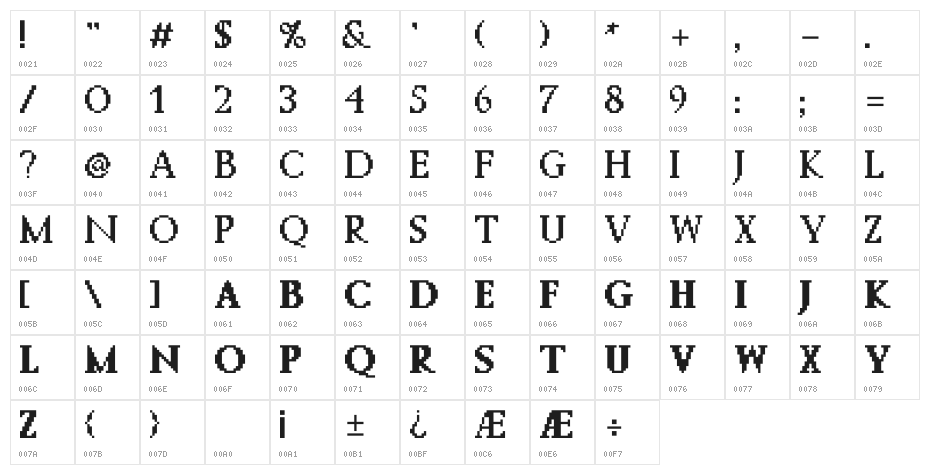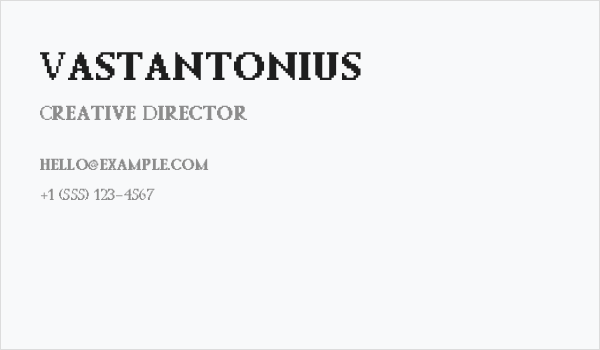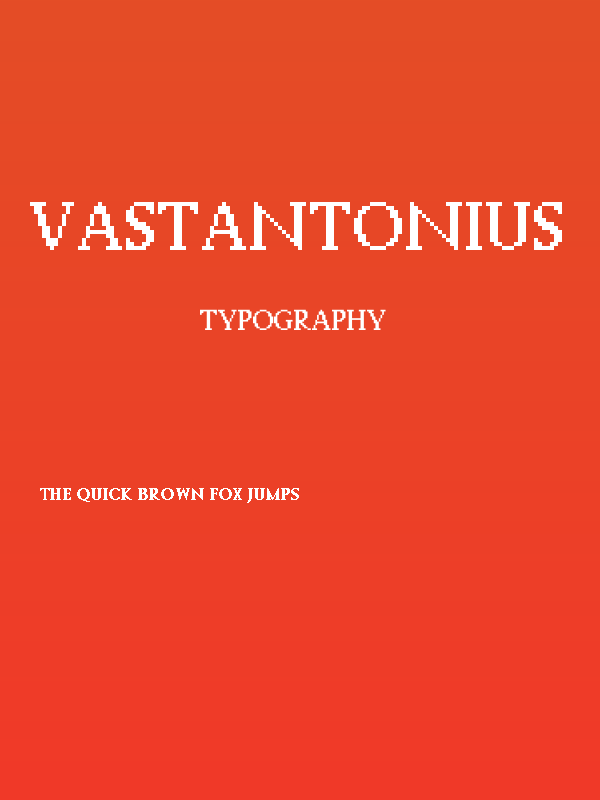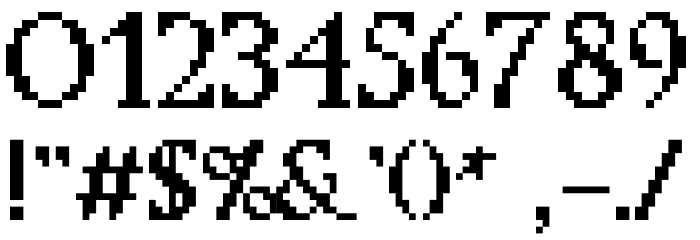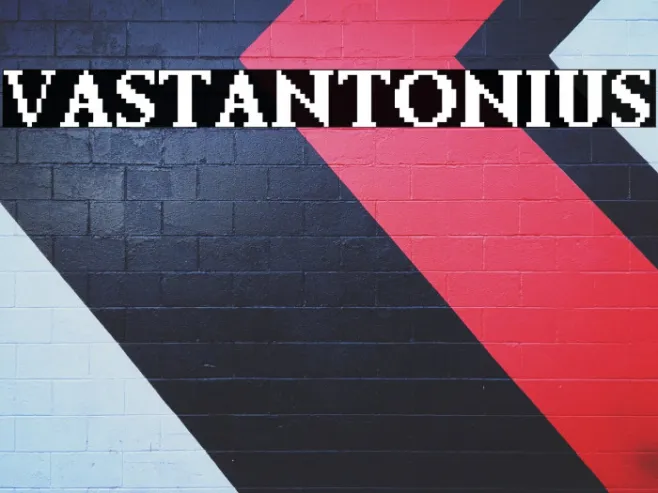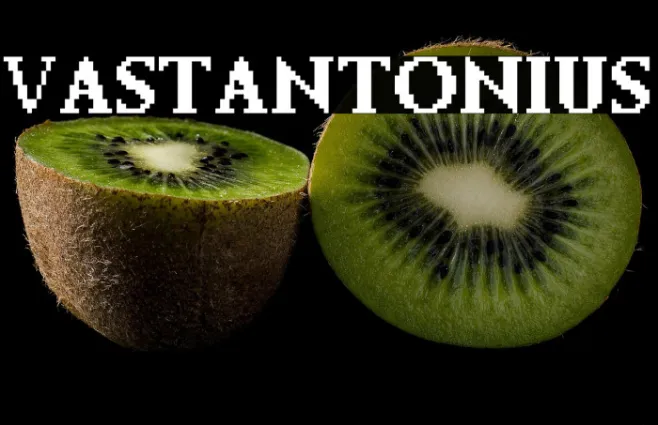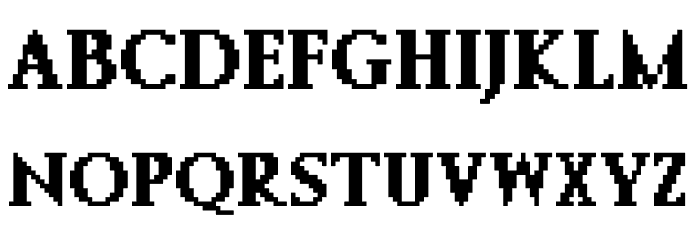
Vastantonius Font
Vastantonius Description
This font features a bold and striking design with a strong presence. The characters are serifed, with distinct, sharp edges and a classic, authoritative look. The uppercase letters are uniform in height, while the lowercase letters maintain a consistent baseline, enhancing readability. Numbers are robust and align well with the overall style, making them suitable for impactful displays. Special characters are crafted with the same attention to detail, ensuring they fit seamlessly with the alphabetic characters. The font's design is reminiscent of traditional serif styles, yet it carries a modern twist that makes it versatile for various applications.